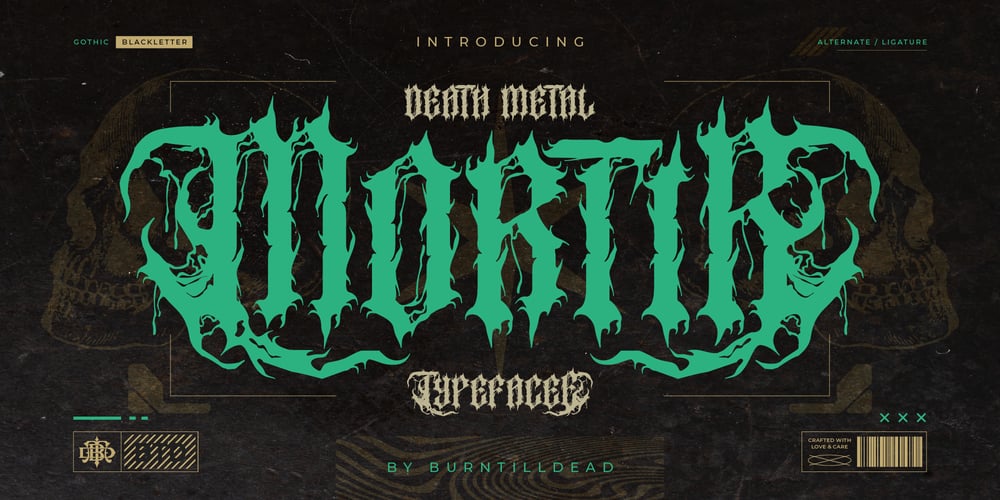
Mortir Death Metal
Mortir Death Metal font
Mortir Death Metal Font Family was designed by Eric Kurniawan and published by Burntilldead. Mortir Death Metal contains 1 styles and family package options. Let us introduce you our death metal font, Mortir! This font have bold, rugged, and often sharp-edged designs that embody the intensity and power of the metal music genre. And feature twisted shapes and a sense of aggression, making them perfect for capturing the spirit of metal in visual form. Each letter exudes an aura of mystique and brutality, perfectly reflecting the atmospheric and sometimes ominous themes prevalent in black metal culture. These fonts are perfectly used in promotional materials for metal concerts, album artwork or cover, concert posters, branding and any design that requires a touch of death metal.